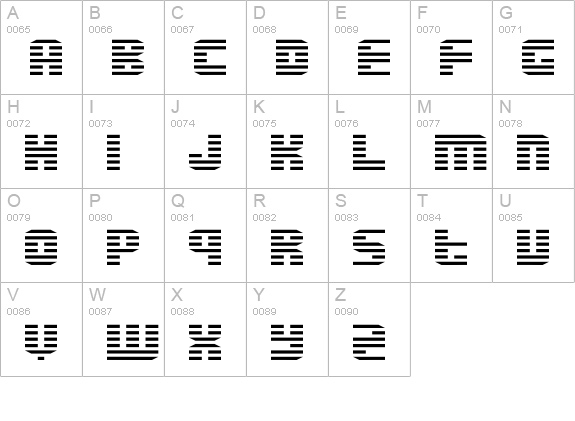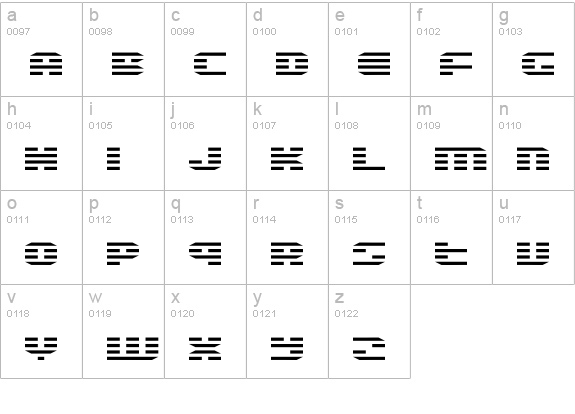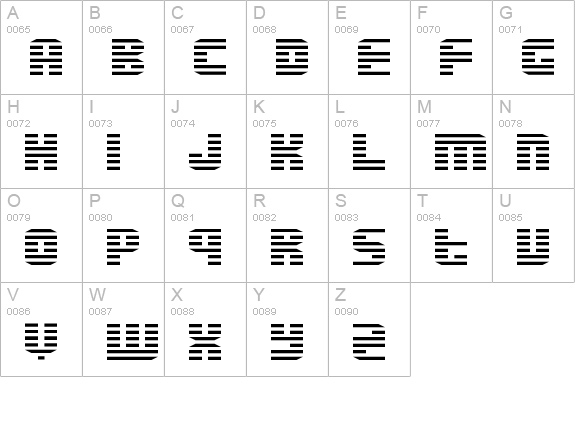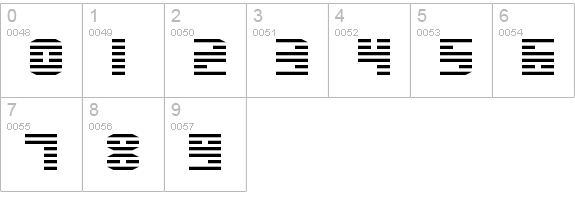
Enduro Dos Font Details
Enduro Dos is a modern and versatile font that perfectly blends elegance with a touch of ruggedness. Its clean lines and bold strokes make it suitable for a wide range of design projects, from branding to editorial design. The font exudes a sense of strength and durability, making it ideal for conveying a sense of reliability and confidence. What sets Enduro Dos apart is not just its striking design, but also its versatility. Whether you're working on a sleek corporate identity or a bold poster design, this font has the flexibility to adapt to various styles and settings. Its timeless appeal ensures that it will remain a go-to choice for designers looking to make a statement. Best of all, Enduro Dos is available for free download at FontsMarket.com. This means that you can access this exceptional font without any cost, making it a valuable asset for both professional designers and hobbyists alike. Don't miss out on the opportunity to add Enduro Dos to your font collection and elevate your designs to the next level.